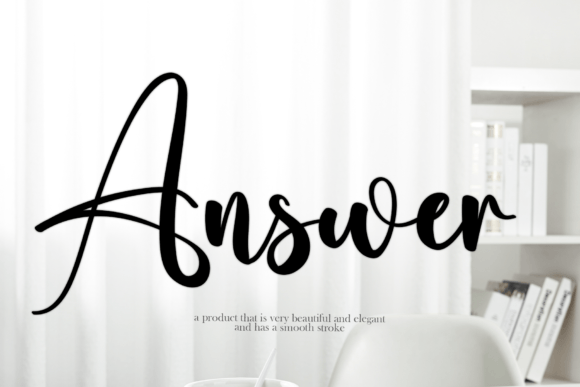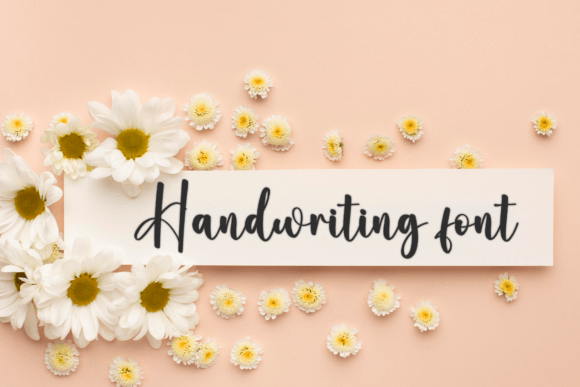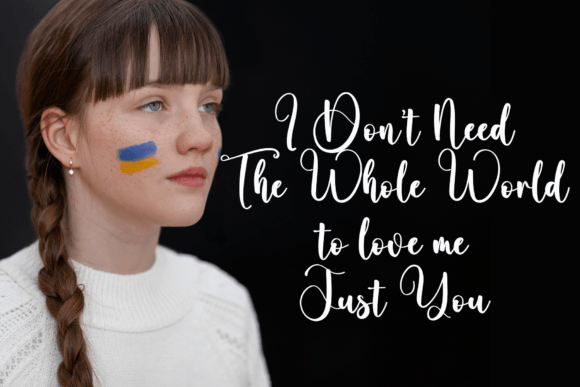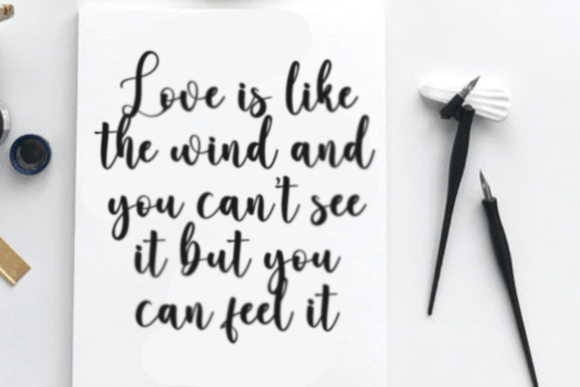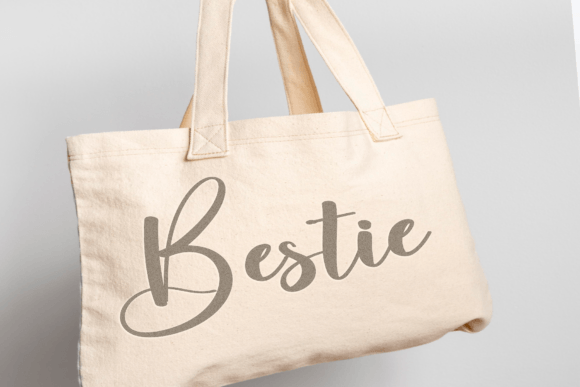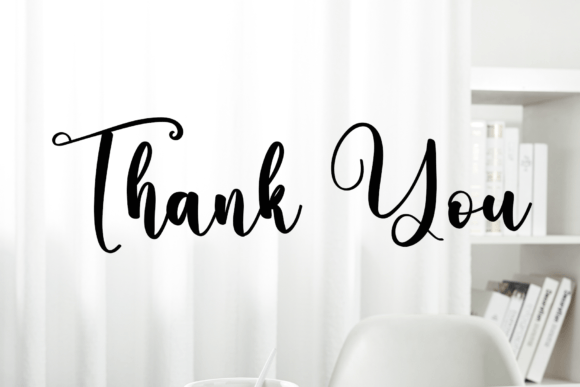
Answer Font
Introducing Answer Font
The Answer Font is a neat and beautiful handwritten typeface celebrated for its elegant touch and timeless style. This font offers a distinct and versatile option that can elevate a wide range of design projects. Its appeal lies in its ability to convey a sense of elegance and timelessness with its handwritten script style.
Why Choose Answer?
• Elegant Touch: The Answer Font adds sophistication and refinement to your designs, making it suitable for branding, invitations, posters, and more.
• Versatile Usage: This font provides a visually appealing choice for social media graphics and other creative endeavors, allowing you to infuse your designs with elegance.
Applications of Answer Font
• Branding: Use this font to create logos and branding materials that exude elegance and style.
• Invitations: Enhance your invitations with a neat and elegant script that captures attention.
• Posters: Perfect for adding a stylish script aesthetic to posters and other creative projects.
The Impact of Using Answer Font
The Answer Font elevates your designs by making them visually captivating and memorable. This font becomes a reliable tool for designers seeking to create projects that stand out with elegance. Its balanced form ensures your designs are both refined and captivating.
The Value It Brings
This typeface excels in combining contemporary design aesthetics with classic elegance. By choosing Answer, you ensure your designs are not only visually appealing but also sophisticated and unique.
This font is also ideal for various creative projects beyond traditional uses. It can enhance digital designs with its elegant flair, making it suitable for websites, brochures, or mobile interfaces. The Answer Font adapts well to different screen sizes while maintaining its charm. As design trends evolve, this font remains relevant due to its timeless appeal, balancing style with functionality effectively.